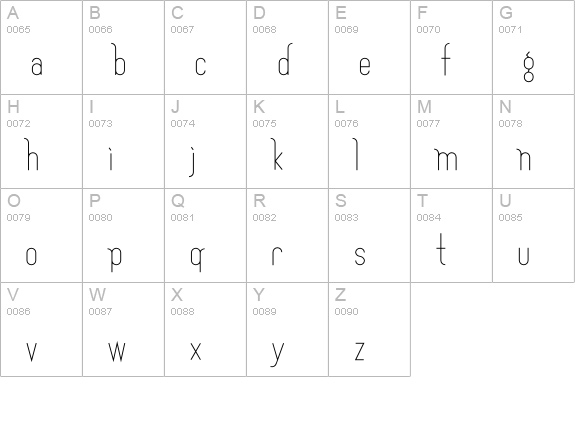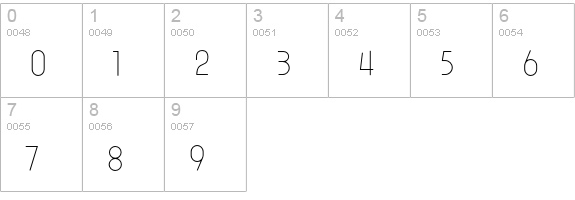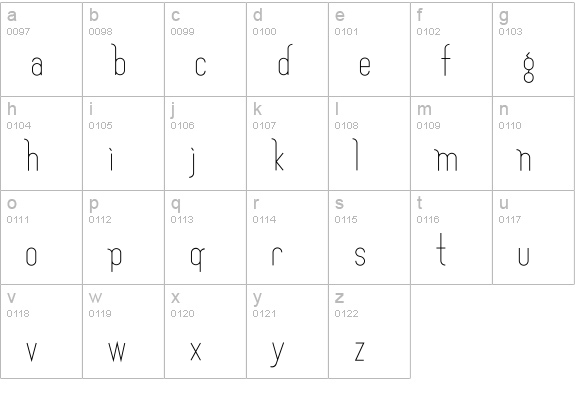
Fish-Light is a refined, elegant variant in the Fish typeface family \xE2\x80\x94 well suited to elegant body text, refined sub-headings, and luxury branding.
Fish-Light font is a beautifully crafted typeface that exudes elegance and sophistication. With its unique design inspired by the graceful movements of underwater creatures, this font is perfect for adding a touch of whimsy to any design project. The slender lines and gentle curves of Fish-Light font create a sense of fluidity and lightness, making it ideal for use in a variety of creative applications. Best of all, Fish-Light font is completely free to download at FontsMarket.com. Whether you're working on a branding project, designing a website, or creating eye-catching posters, this font will elevate your work to the next level. Don't miss out on the opportunity to add Fish-Light font to your collection and bring a touch of underwater magic to your designs.